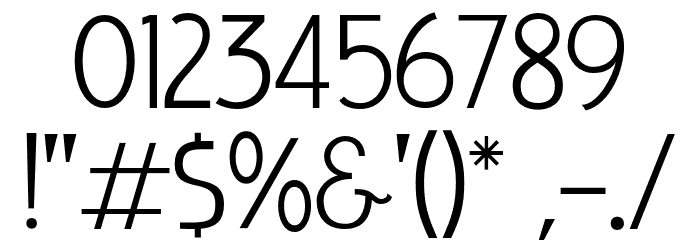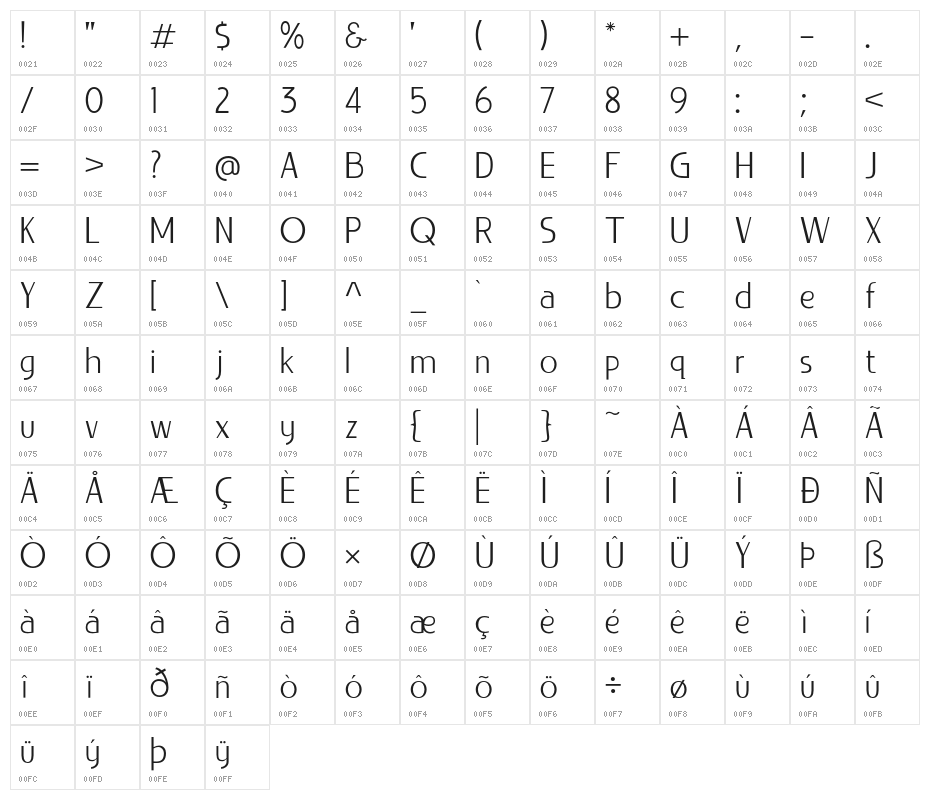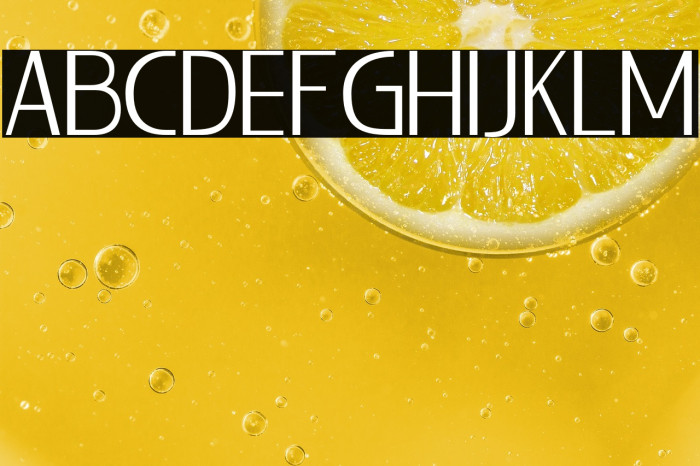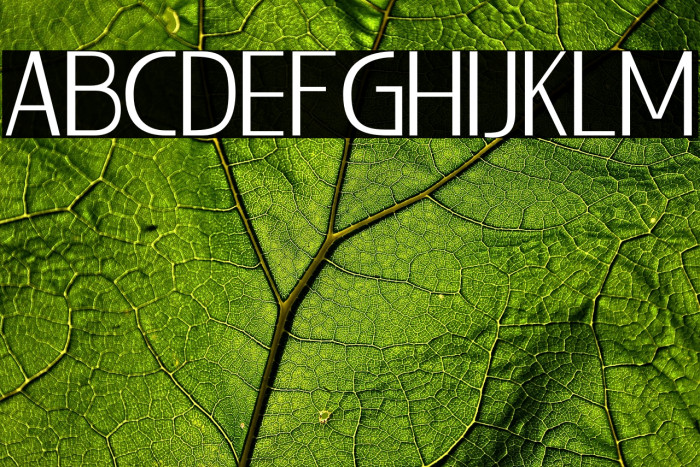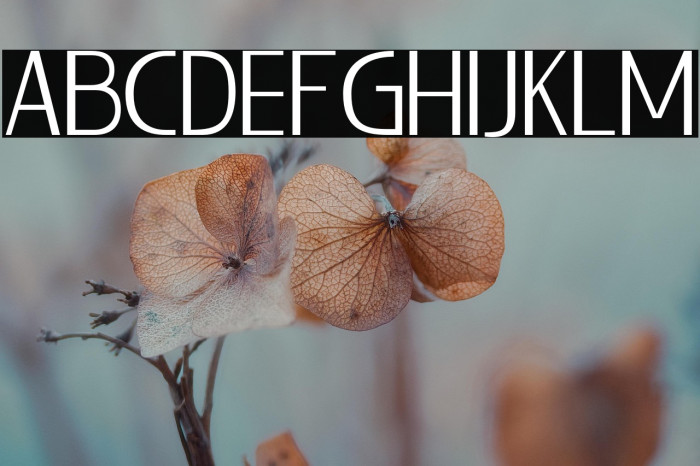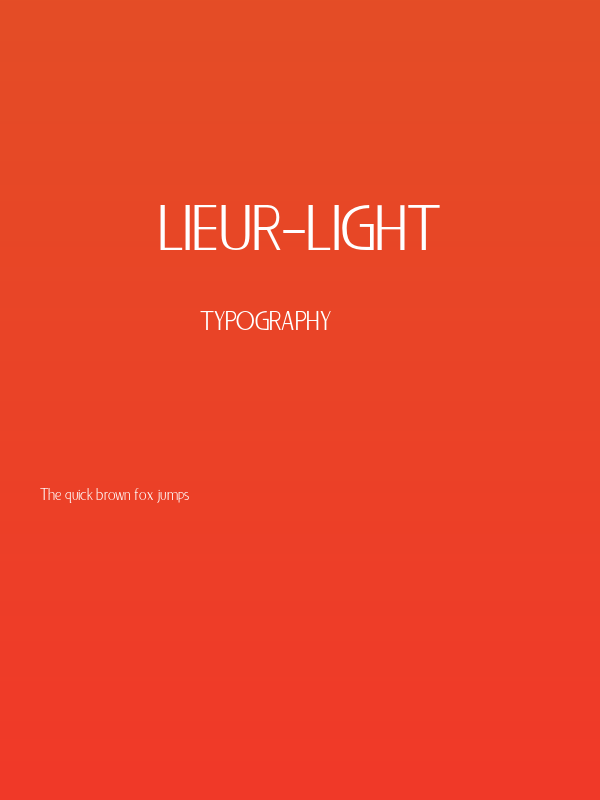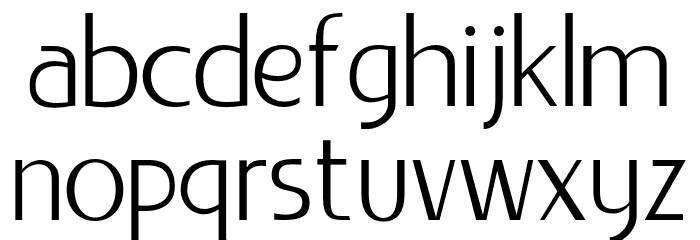
LIEUR-Light Font
LIEUR-Light Description
This font features a sleek and modern sans-serif design, characterized by its clean lines and geometric shapes. The letters are evenly spaced, providing a balanced and harmonious appearance. The uppercase and lowercase letters maintain a consistent style, with a slight variation in stroke width that adds subtle elegance. The numerals are clear and legible, making them suitable for various applications. Special characters are well-integrated, maintaining the overall aesthetic of the font. Its light weight and minimalistic design make it versatile for both digital and print media.